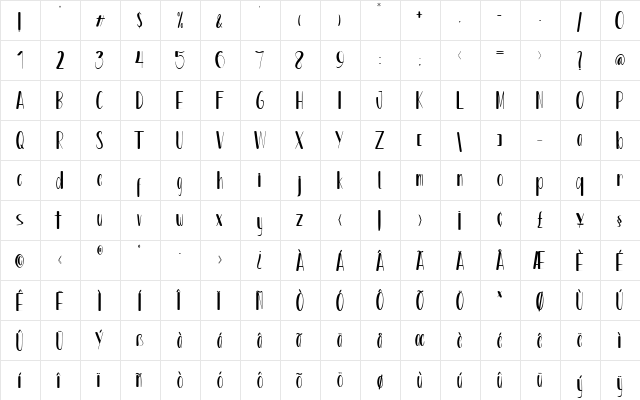
Skandis Regular
Design Context for Skandis Typeface
Skandis is a composed and adaptable typeface that performs quietly and consistently across a wide range of design contexts.
Pro Tip: Use Skandis in both headline and body roles to test its range before committing to a single application.